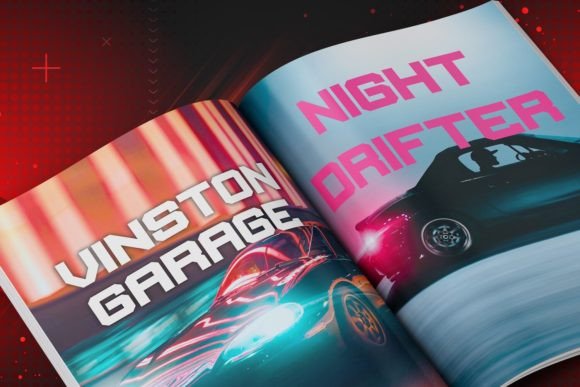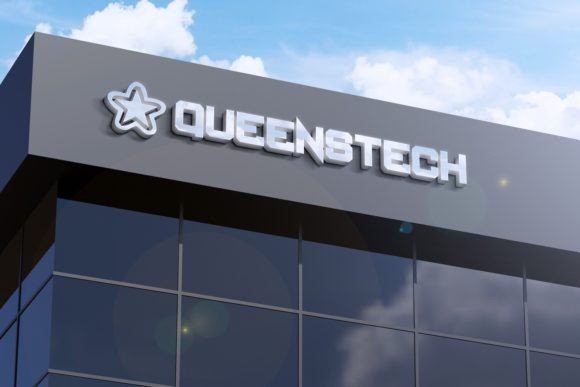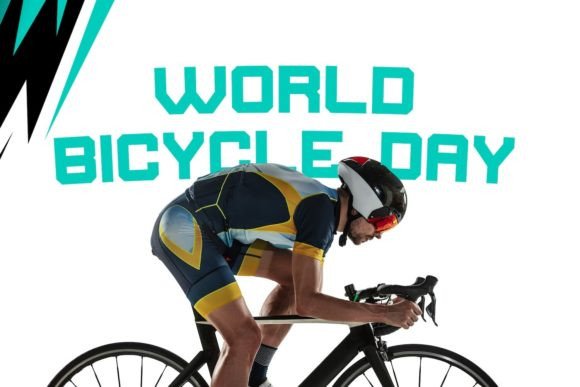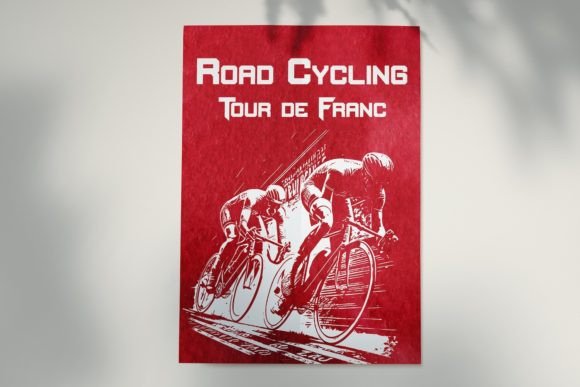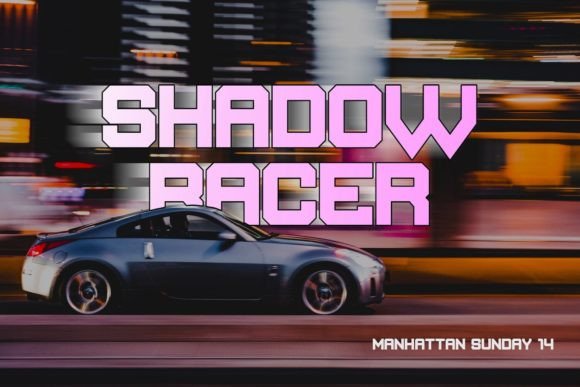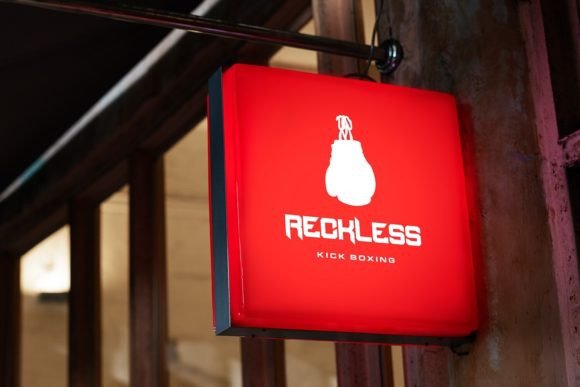
Introducing Esportiva Font: The Ultimate Sporty Display Font
Are you tired of using the same old fonts for your designs? Do you want to add a touch of modernity and playfulness to your typography? Look no further than Esportiva Font, a sporty and modern display font that’s perfect for designers and crafters alike. In this article, we’ll dive into the world of Esportiva Font, exploring its features, benefits, and uses, and why it’s a must-have for any designer or crafter looking to elevate their typography game.
What is Esportiva Font?
Esportiva Font is a display font designed to make a statement. With its sporty and modern aesthetic, this font is perfect for headlines, titles, and any other text that needs to stand out. Its playfully conceptual design makes it a unique and refreshing addition to any design project, from logos and branding to posters and social media graphics.
Key Features of Esportiva Font
• Sporty and Modern Design: Esportiva Font boasts a sleek and contemporary design that’s perfect for sports-related designs, as well as any project that requires a modern and edgy feel.
• Playful and Conceptual: This font’s playful and conceptual design makes it a standout in any design project. Its unique and quirky feel is sure to capture the attention of your audience.
• Highly Versatile: Esportiva Font is a highly versatile font that can be used in a wide range of contexts, from digital designs to print materials.
• Easily Readable: Despite its playful design, Esportiva Font is easily readable, making it perfect for use in body text as well as headlines.
Benefits of Using Esportiva Font
So why choose Esportiva Font for your design projects? Here are just a few benefits of using this amazing font:
• Adds a Touch of Modernity: Esportiva Font’s modern design instantly adds a touch of sophistication and style to any design project.
• Grabs Attention: With its playful and conceptual design, Esportiva Font is sure to grab the attention of your audience and leave a lasting impression.
• Versatile and Adaptable: This font’s versatility makes it perfect for use in a wide range of design projects, from logos and branding to social media graphics and posters.
Who Can Benefit from Esportiva Font?
Esportiva Font is perfect for a wide range of designers and crafters, including:
• Graphic Designers: Add a touch of modernity and playfulness to your designs with Esportiva Font.
• Logos and Branding Experts: Create unique and memorable logos and branding materials with this versatile font.
• Social Media Managers: Elevate your social media graphics with Esportiva Font’s sporty and modern design.
• Crafters and Makers: Add a professional touch to your handmade projects with this beautiful and versatile font.
How to Use Esportiva Font
Using Esportiva Font is easy! Here are a few tips to get you started:
• Pair with Other Fonts: Pair Esportiva Font with other fonts to create a unique and eye-catching typography combination.
• Experiment with Colors: Try out different colors and color combinations to add an extra layer of depth and interest to your designs.
• Play with Sizes: Experiment with different font sizes to create visual interest and hierarchy in your designs.
In conclusion, Esportiva Font is a sporty and modern display font that’s perfect for designers and crafters looking to add a touch of playfulness and sophistication to their typography. With its highly versatile design, ease of use, and attention-grabbing aesthetic, Esportiva Font is a must-have for any design project. So why wait? Download Esportiva Font today and take your designs to the next level!